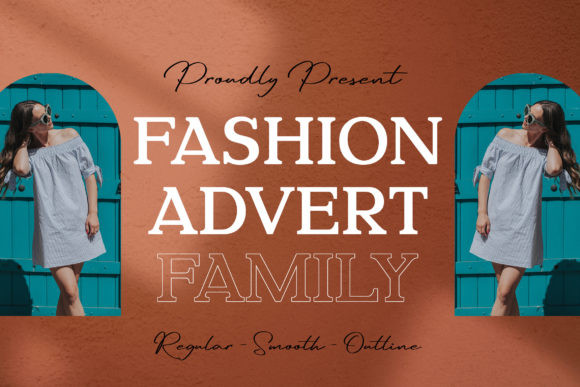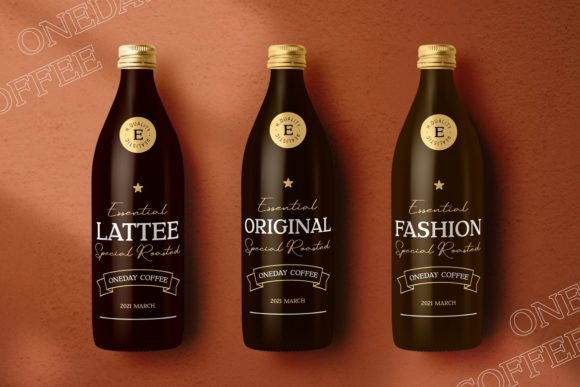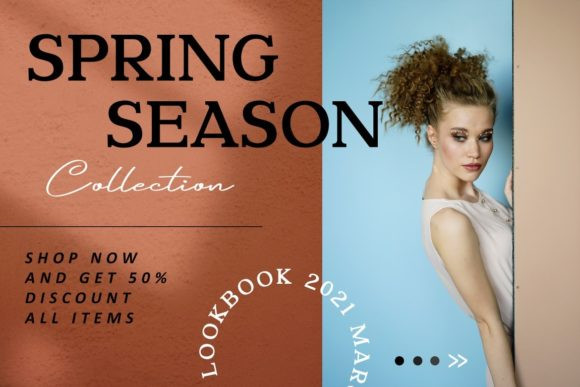
Fashion Advert Font
Fashion Advert is a cool, bold and assertive serif font. No matter the topic, this font will be an incredibly asset to your fonts’ library, as it has the potential to elevate any creation.